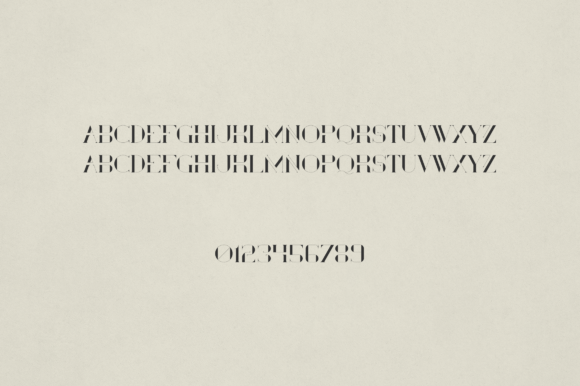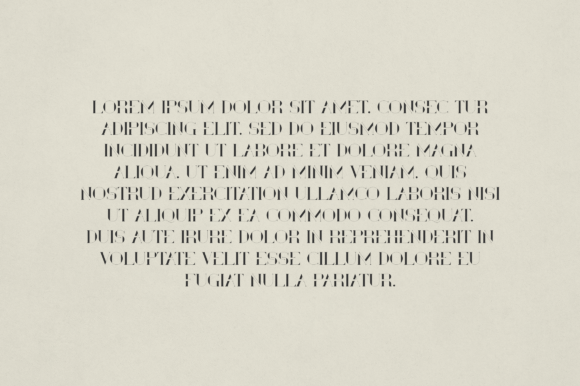
Introduction to Portia Font
Have you ever stared at a blank canvas, waiting for that perfect design to emerge? The moment of creative clarity when all the elements come together is exhilarating. For designers, it’s a moment of triumph – a fusion of style, functionality, and emotional connection. And, what’s more, it’s not just about the design itself, but the tools we use to bring it to life. In this article, we’ll explore one such tool that has the potential to elevate your typography game – the Portia Font.
As a high-quality design resource, the Portia Font is an enchanting serif font that can add a touch of sophistication to any creative project. Whether you’re working on a branding project, home-ware design, or product packaging, this versatile font is sure to make your design stand out. And the best part? It’s available for a free download, allowing you to experiment with its various uses and styles.
Key Features of Portia Font
- Unique characteristics include elegant and sophisticated letterforms, making it perfect for luxury branding and high-end design projects
Honest Review: Portia Font
I recently had the chance to work with the Portia Font and I must say, it’s been a great addition to my design resource library. The font is free to download, which is always a bonus when working on a creative project.
One of the things that works well with the Portia Font is its high quality and versatility. It’s available in multiple styles, from a clean and modern sans-serif to a beautiful script, making it suitable for a wide range of design applications.
- High quality and detailed design
- Available in multiple styles, including sans-serif and script
While the Portia Font is a solid choice for most design projects, I would caution against using it for very small font sizes, as the details can get lost. ⚠️ Additionally, the font may not be suitable for use on low-resolution screens.
Overall, I’m very impressed with the Portia Font and would definitely recommend it to fellow designers. It’s a great addition to any design resource library and can be a valuable asset for creative projects. ✨
Tips for Getting the Most Out of Portia Font
Some tips for getting the most out of the Portia Font include:
– Experimenting with different font sizes and styles to find the perfect fit for your creative project.
– Using the font in combination with other design elements to create a cohesive and high-quality design.
Common Use Cases for Portia Font
The Portia Font is commonly used in a variety of creative projects, including:
– Logo design
– Branding materials
– Digital art
– Print materials
Yes, the Portia Font has a transparent background, making it perfect for creative projects that require a clean and minimalist design. The font’s transparent background allows for seamless integration with images and backgrounds, giving you more design flexibility.
Is the Portia Font a high-quality design resource?
Yes, the Portia Font is a high-quality design resource, carefully crafted to provide a unique and elegant look for your projects. Its high-quality design makes it an excellent choice for designers who demand the best for their creative projects.